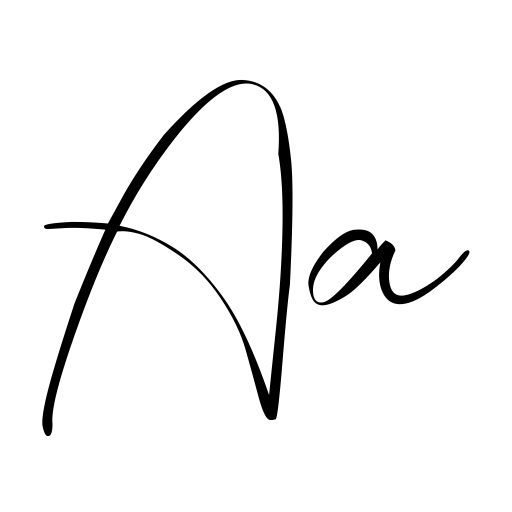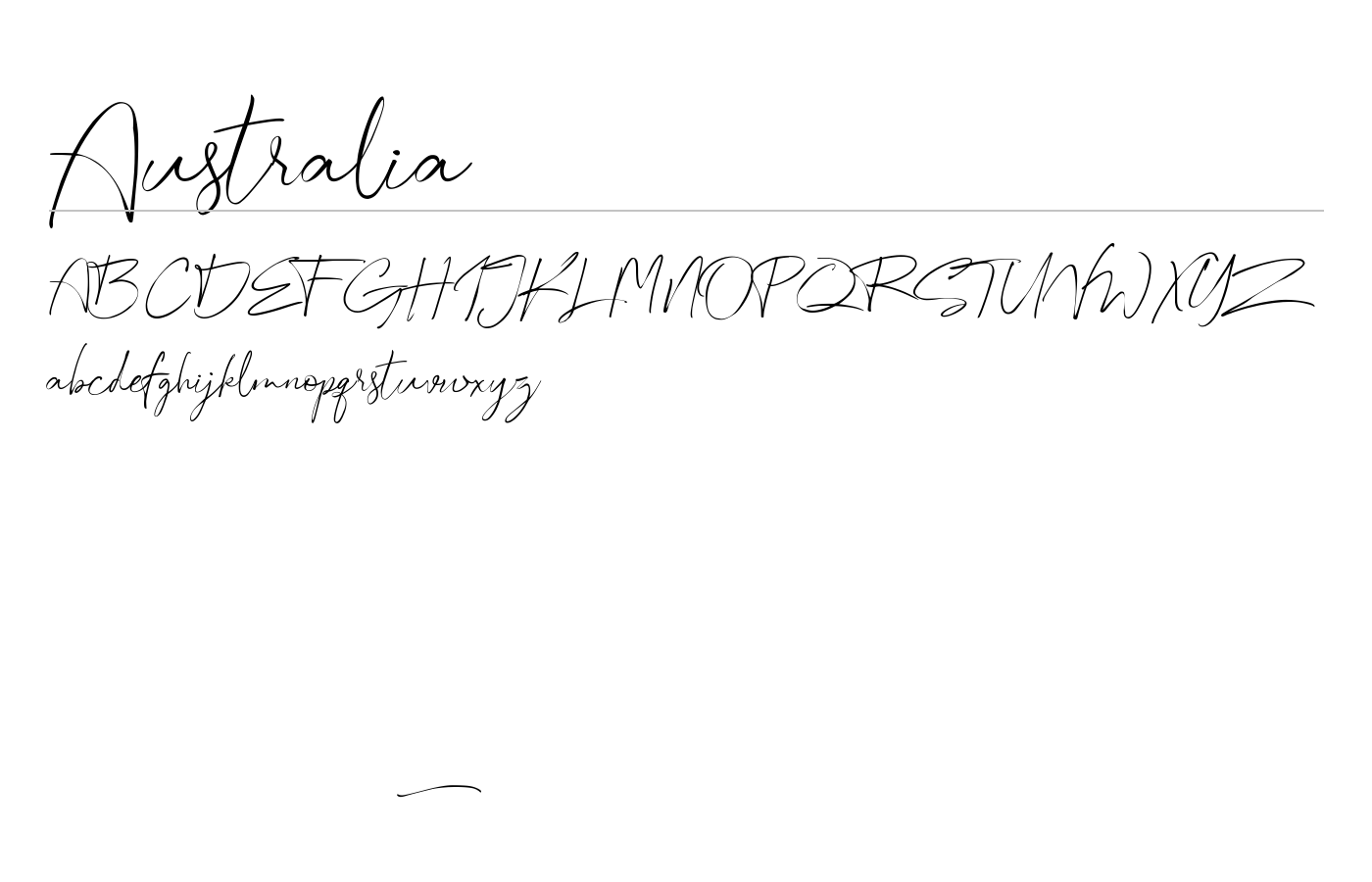
Australia Font is a delicate, handwritten script with an airy, elegant feel, characterized by its thin, flowing strokes and slightly irregular letterforms that add a personal and artistic touch. This font works beautifully for creative and sophisticated branding, invitations, and stylish logos where a softly expressive, modern calligraphic look is desired. Its light and graceful nature makes it ideal for decorative use rather than long texts, lending a charming, boutique personality to designs.
Australia Font
About Australia Font